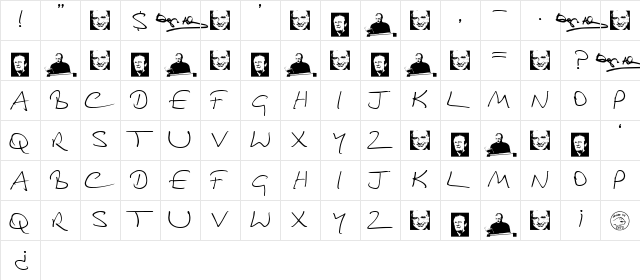
Douglas Adams Hand Regular
| Foundry | [ Divide By Zero ] Fonts |
| Designer | Tom 7 / DNA |
Design Context for Douglas Adams Hand Typeface
Douglas Adams Hand flows with the natural rhythm of handwritten lettering, making it ideal for designs that call for warmth and personal expression.